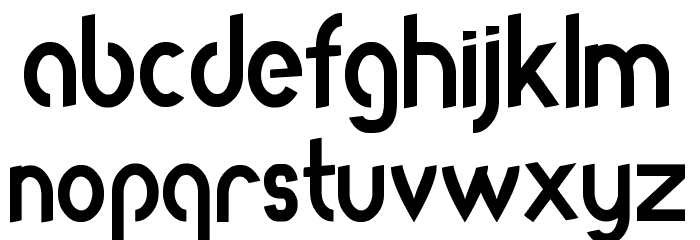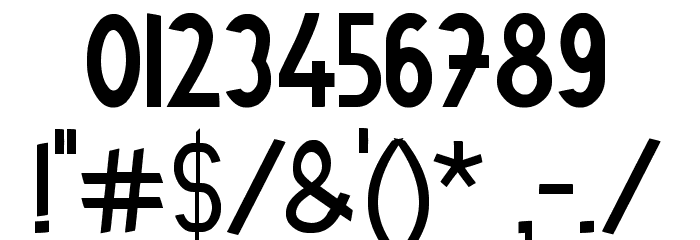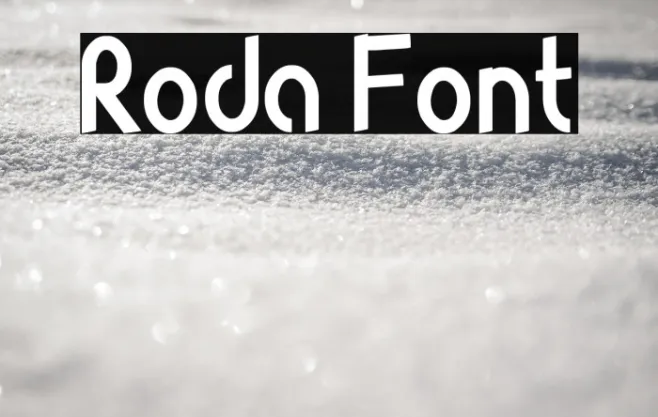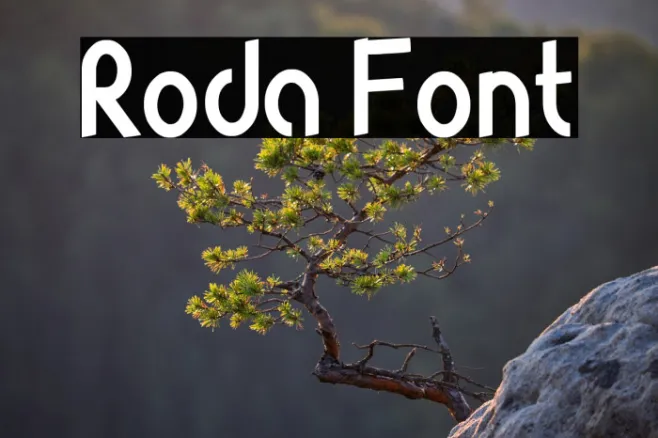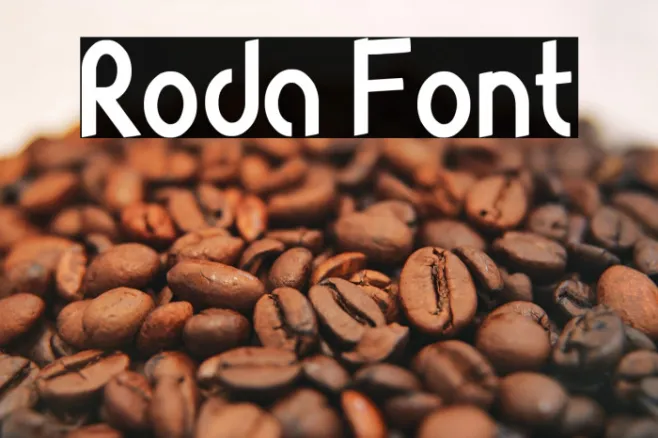
Roda Font
This font features a modern and playful design with a unique blend of geometric and rounded elements. The uppercase letters are bold and assertive, while the lowercase letters maintain a friendly and approachable appearance. The numerals are clear and easy to read, with a consistent stroke width that complements the overall design. Special characters are well-integrated, maintaining the font's cohesive style. The font's distinctiveness lies in its ability to convey both professionalism and creativity, making it versatile for various applications.
A modern, playful font with geometric and rounded elements.
- Proposed Projects: Ideal for branding, advertising, children's books, and creative projects.